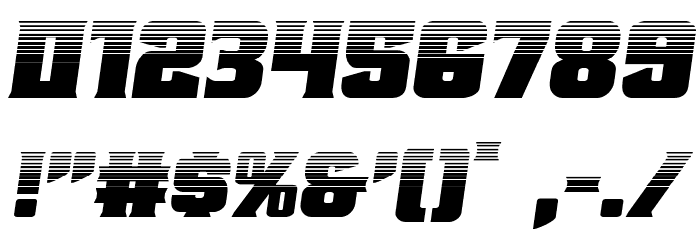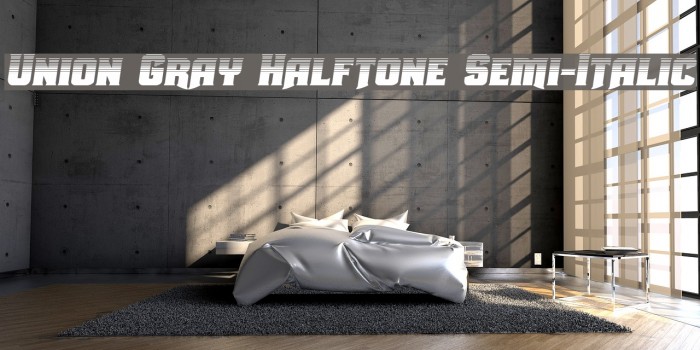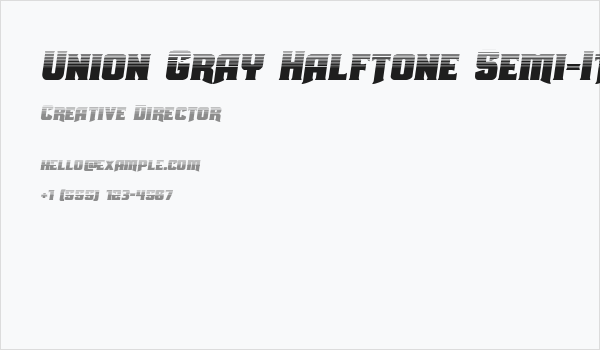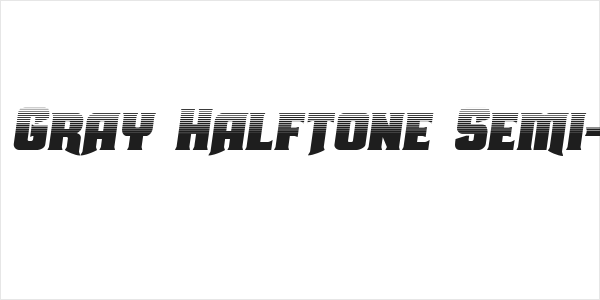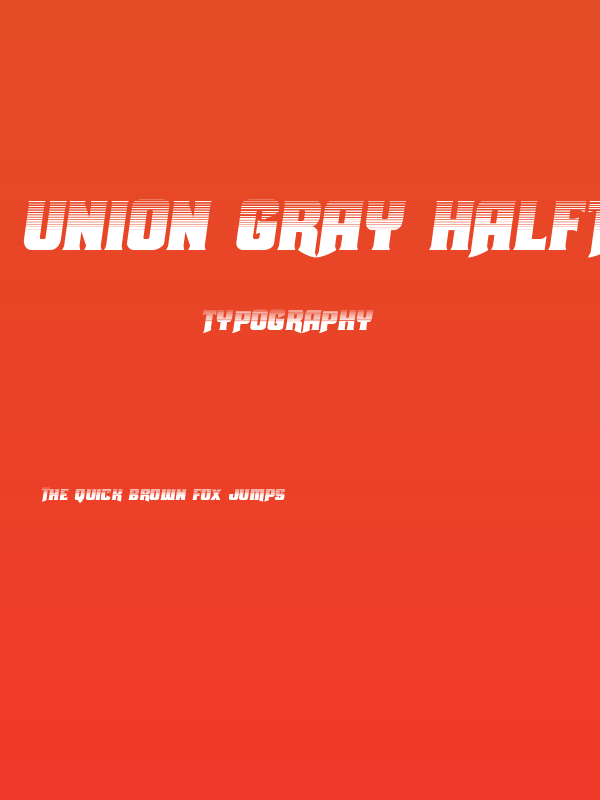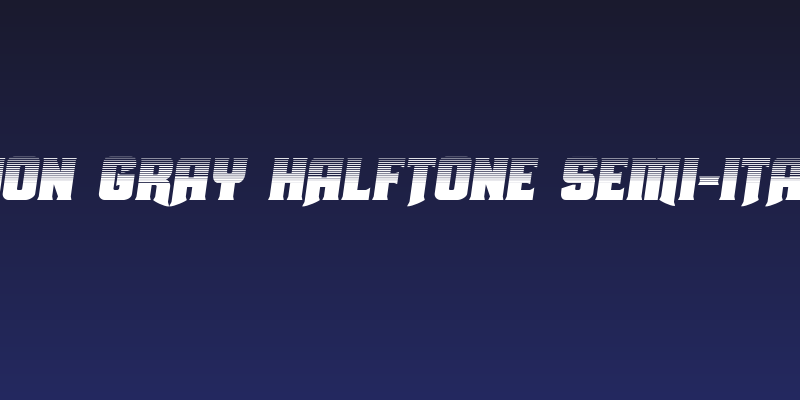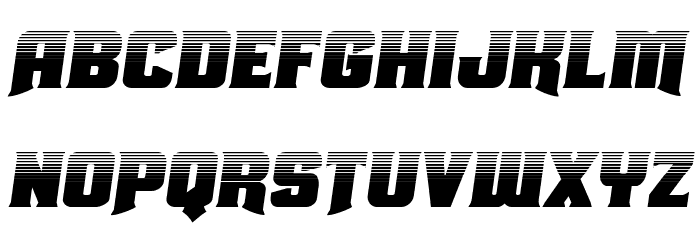
Union Gray Halftone Semi-Italic Font
Union Gray Halftone Semi-Italic Description
This font features a bold, dynamic style with a distinct halftone effect that gives it a unique, textured appearance. The semi-italic slant adds a sense of motion and energy, making it stand out. The uppercase and lowercase letters maintain a consistent design, with sharp angles and a strong presence. The numbers and special characters are equally bold, ensuring uniformity across all text elements. The halftone pattern creates a gradient effect, adding depth and visual interest. This font is ideal for projects that require a modern, edgy look with a touch of retro flair.
| Proposed Projects | Ideal for posters, album covers, sports branding, and any design needing a bold, energetic look. |